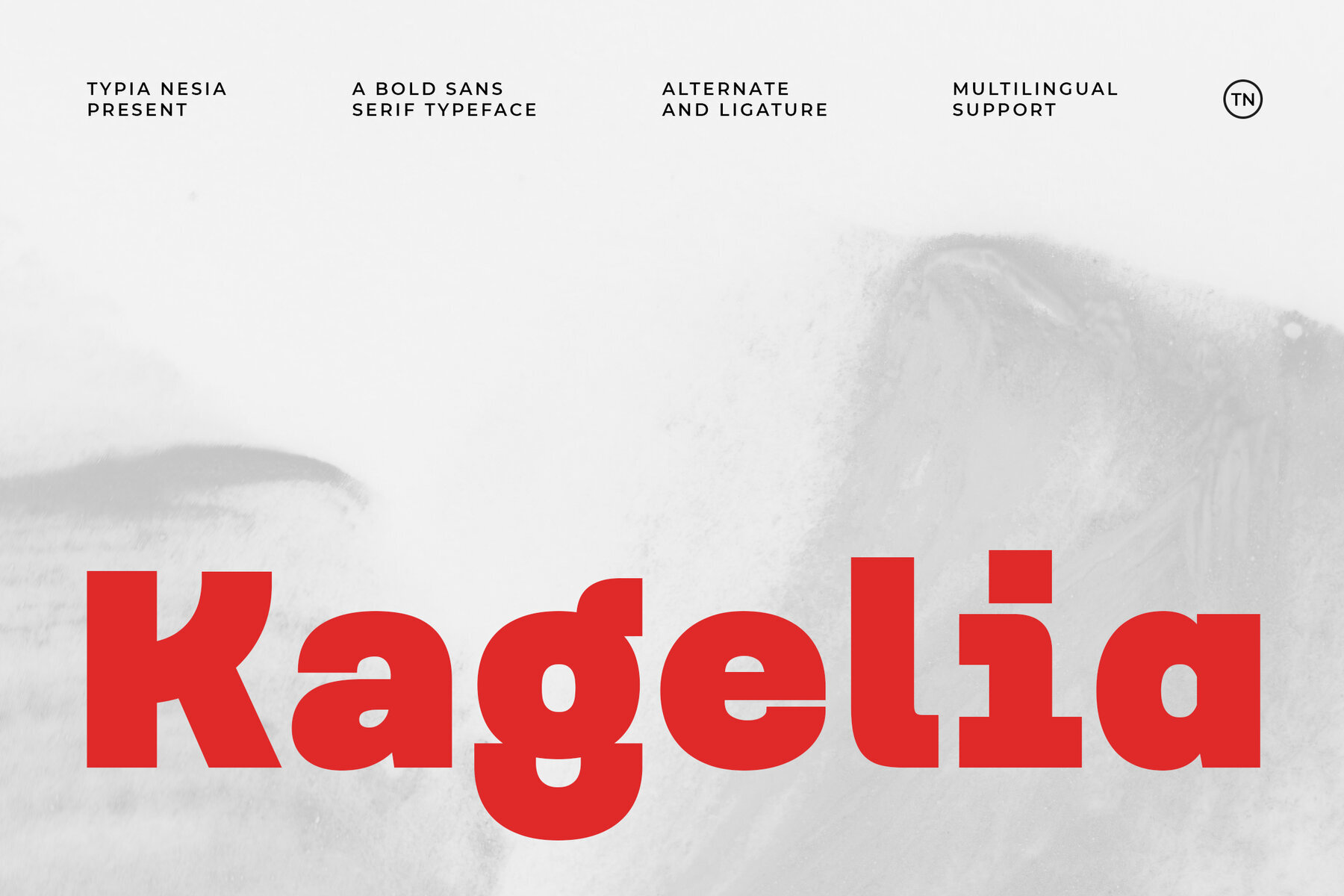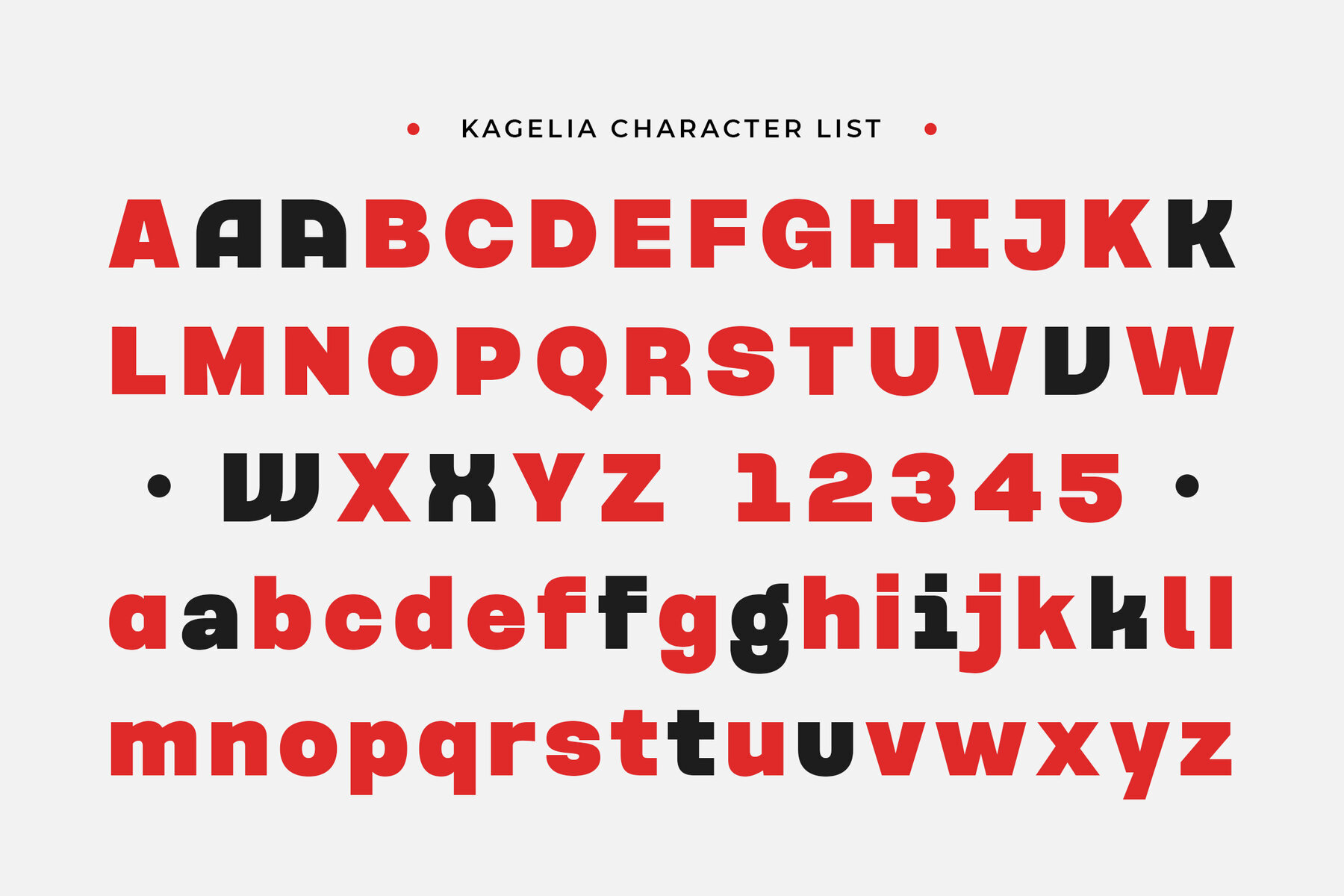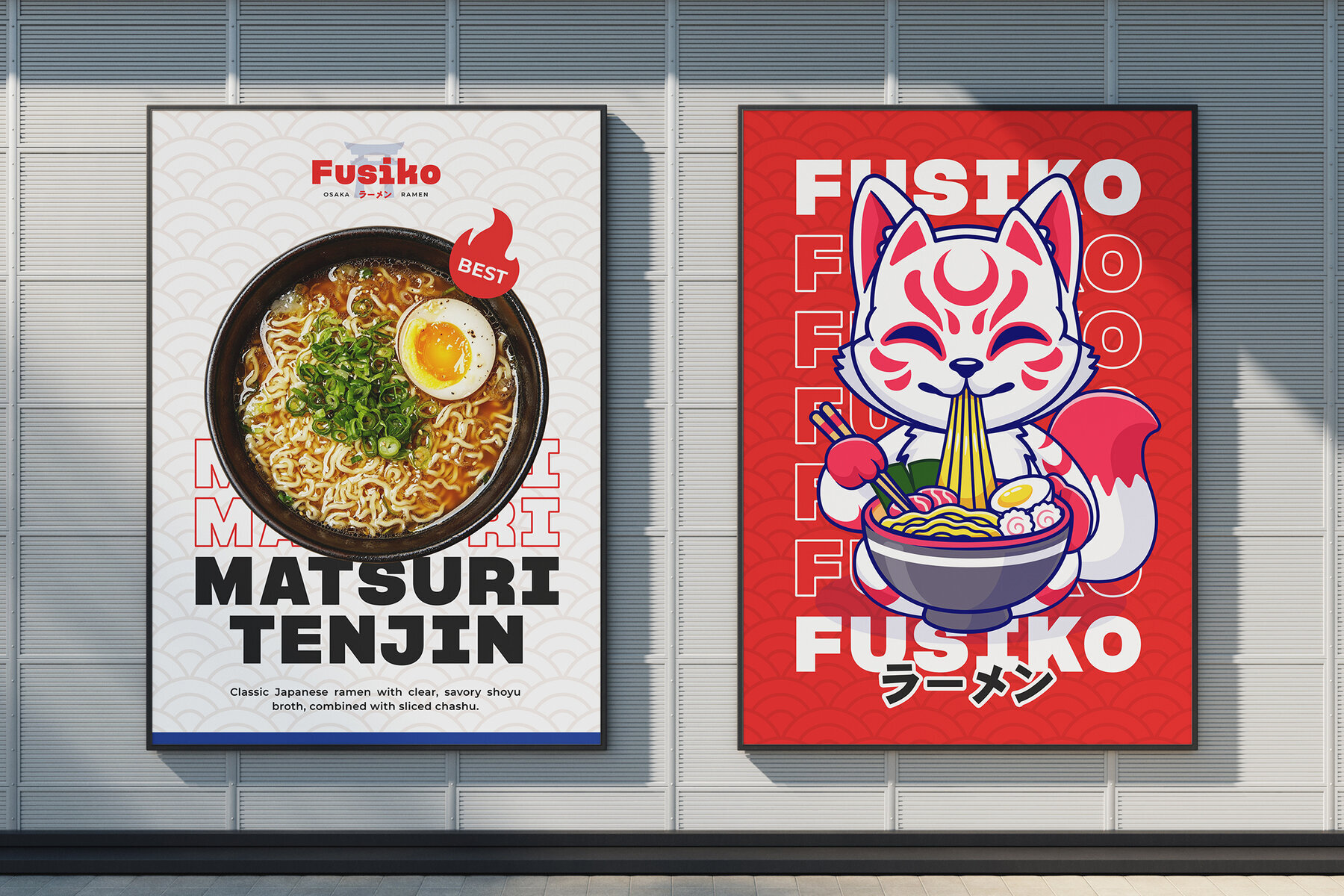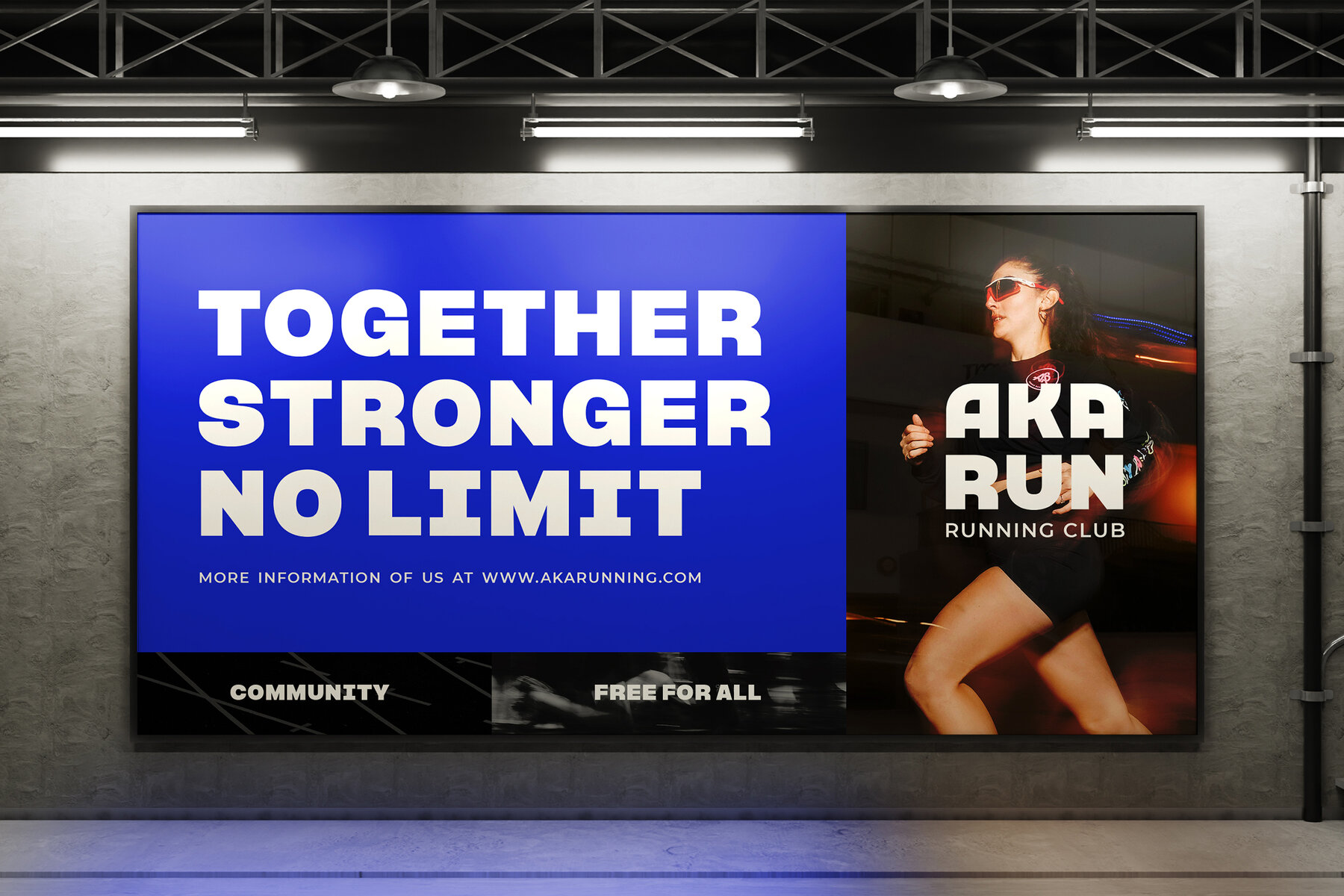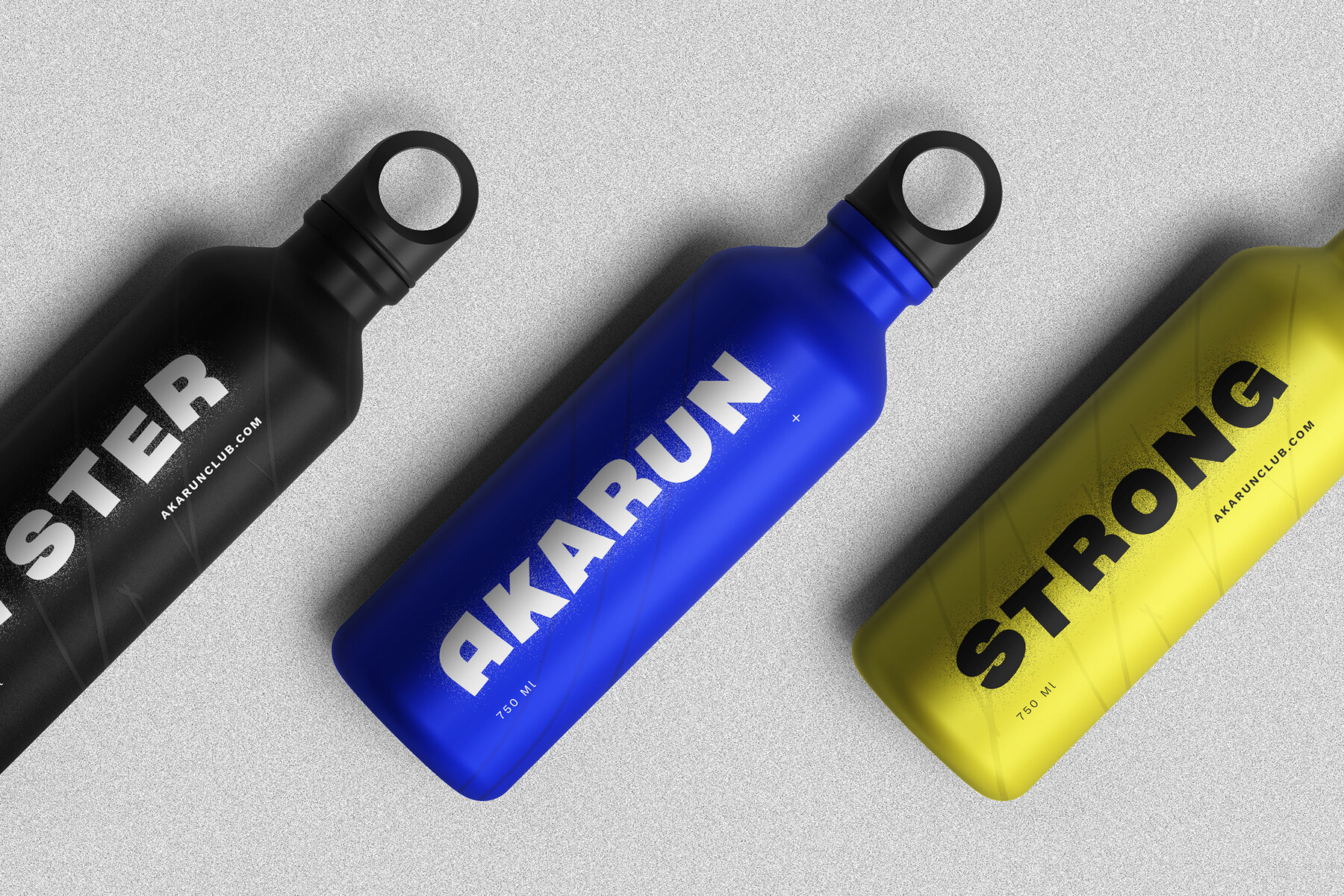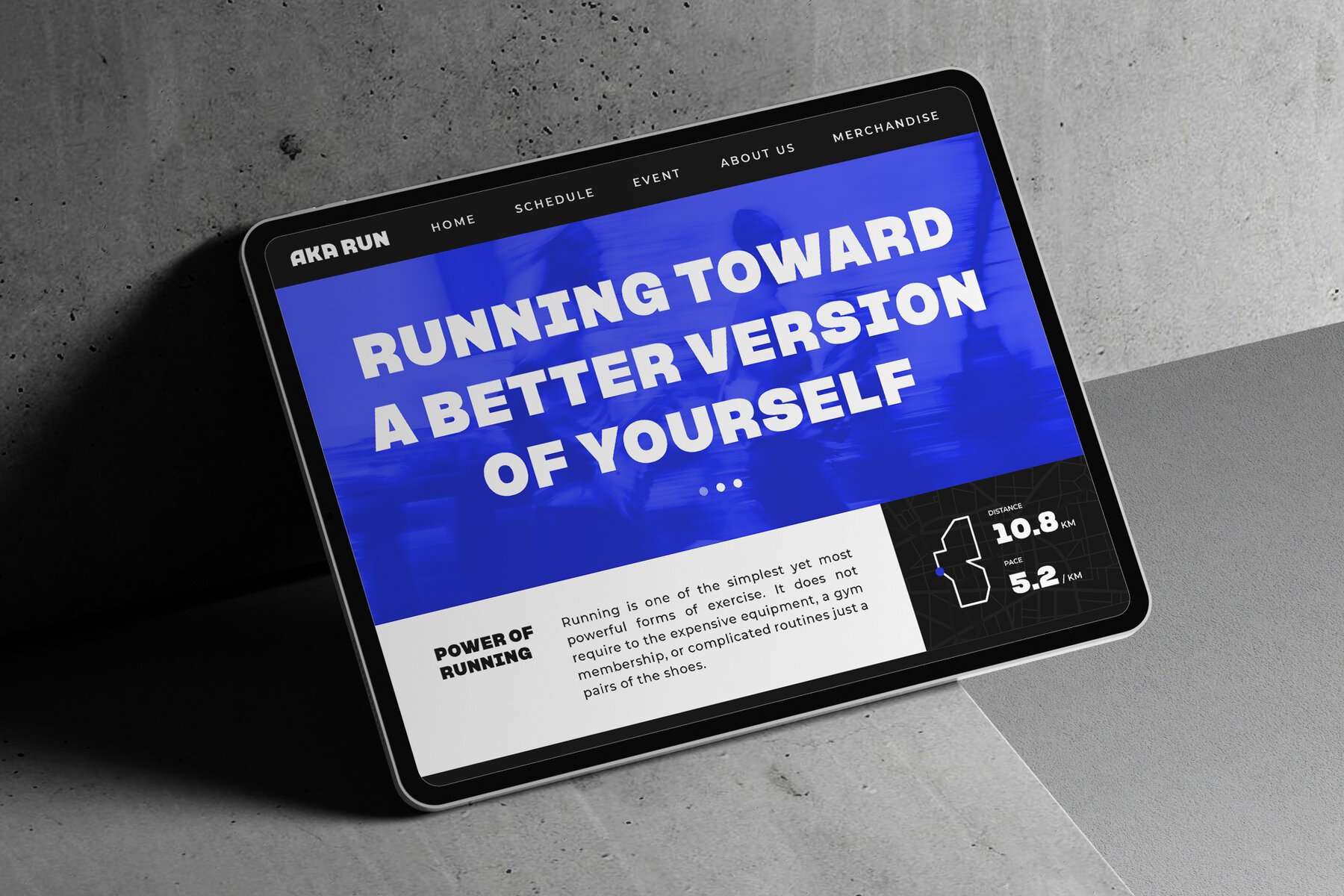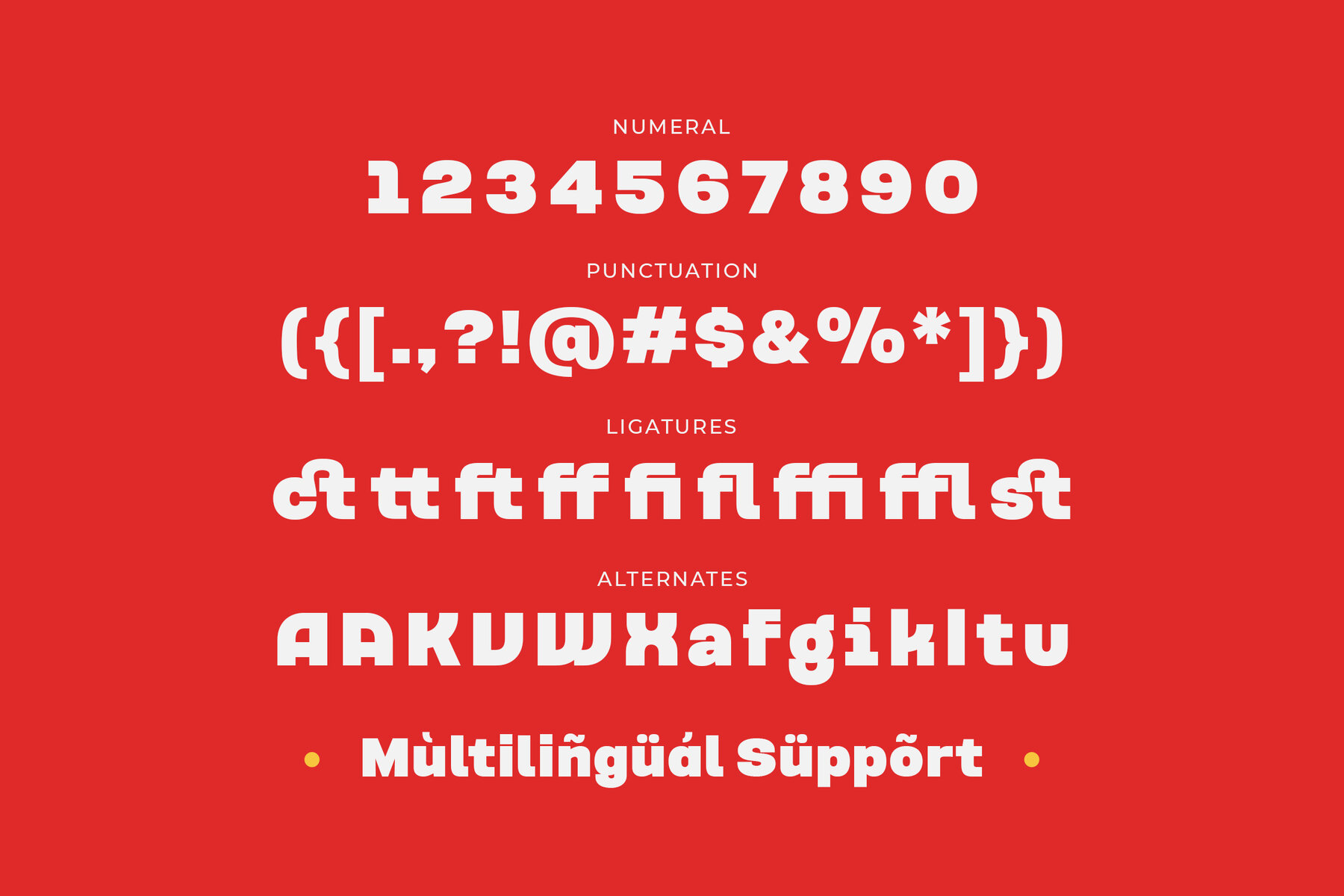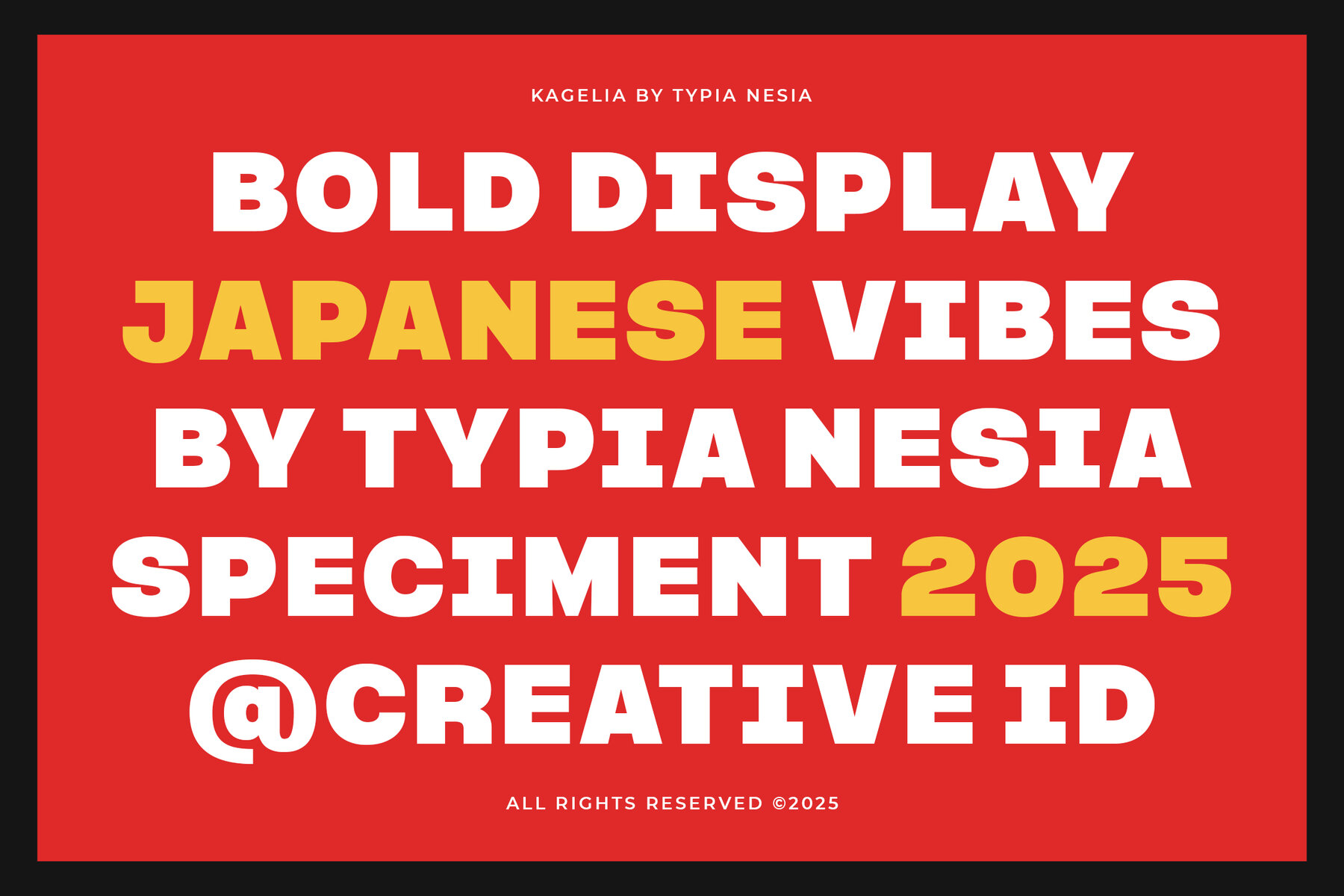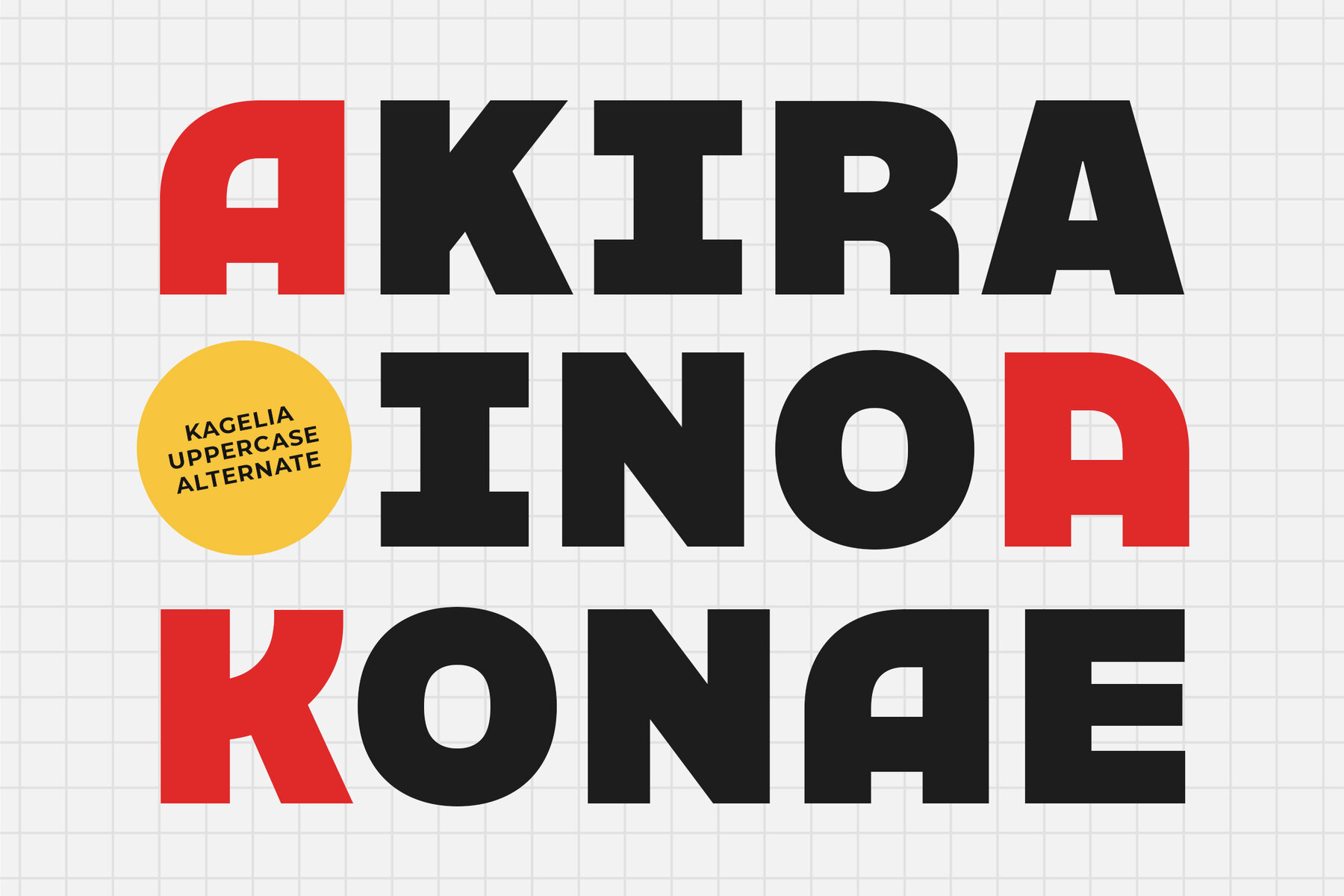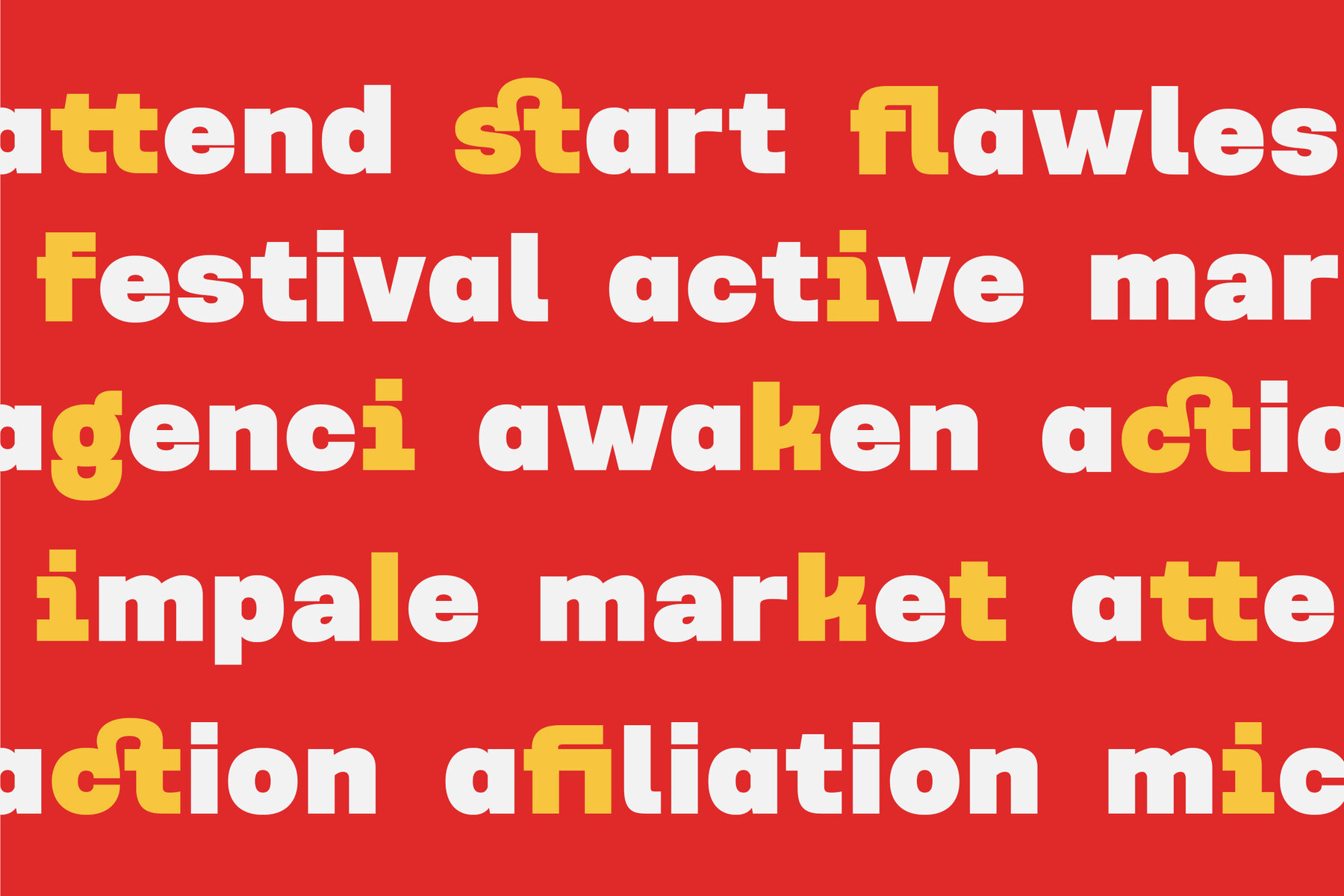
Kagelia Font
Kagelia Regular
Kagelia stands out as a modern sans-serif font, characterized by its bold and minimal aesthetic. With its strong, geometric letterforms, it is designed to make a powerful statement across diverse projects. Ideal for attention-grabbing headlines, memorable logos, and impactful corporate branding, Kagelia offers the versatility needed to communicate effectively in any context. Its application ranges from sports and packaging to food and advertising, making it an adaptable choice whether for a new startup or an established enterprise. Additionally, Kagelia’s alternate characters and multilingual support ensure clarity and engagement in a multitude of languages.Kagelia: Bold Minimalism for Impactful Design